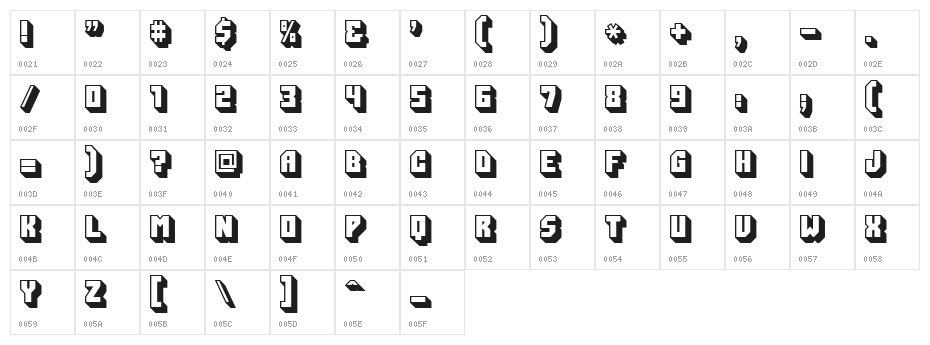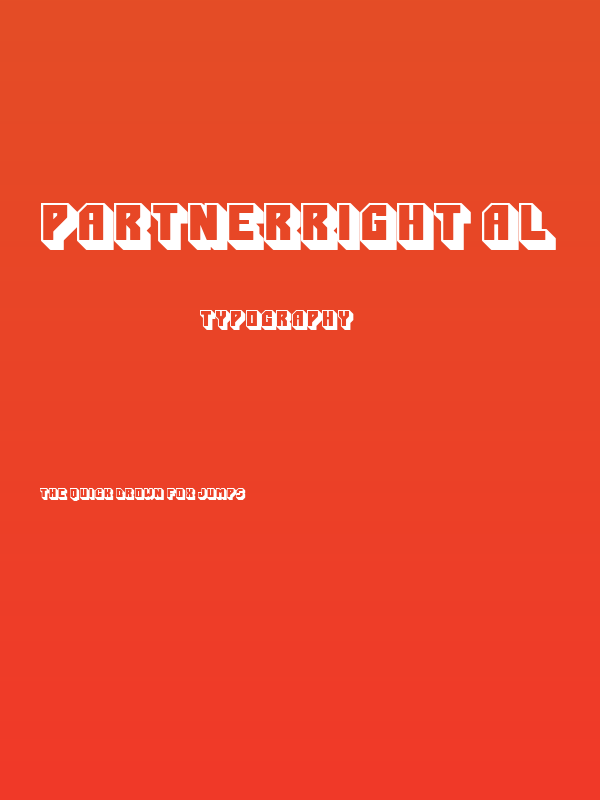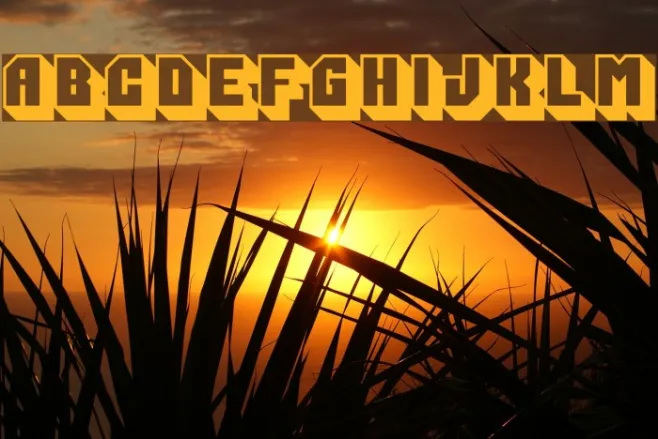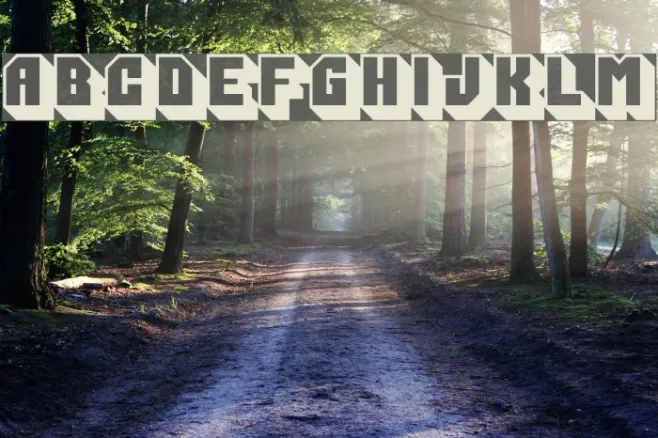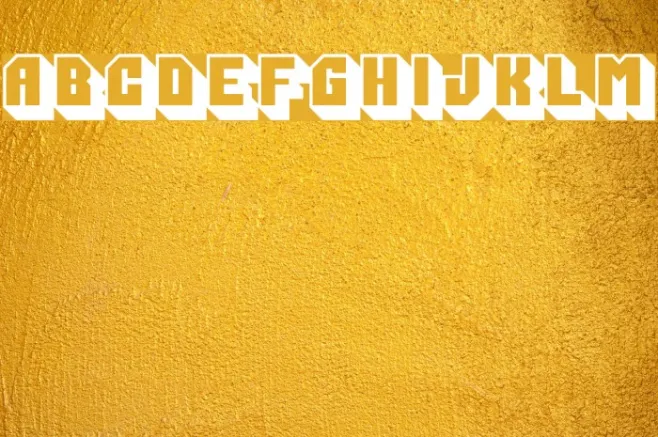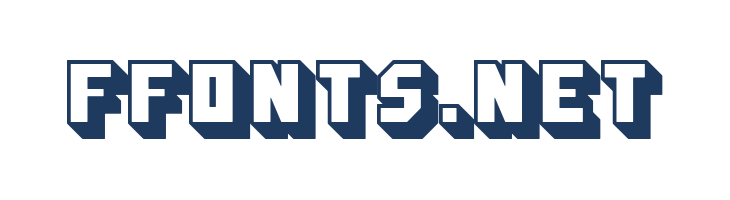
PartnerRight Al Font
PartnerRight Al Description
This font features a bold, three-dimensional block style with a strong shadow effect that gives it a striking, impactful appearance. The characters are uppercase and lowercase letters, along with numerals and a selection of special characters. Each letter is designed with sharp angles and a thick outline, creating a sense of depth and solidity. The font's geometric structure and bold presence make it ideal for attention-grabbing designs. The shadow effect is consistent across all characters, enhancing the font's cohesive and dynamic look.
| Proposed Projects | Ideal for posters, video game graphics, logos, and any design requiring a bold, eye-catching typeface. |